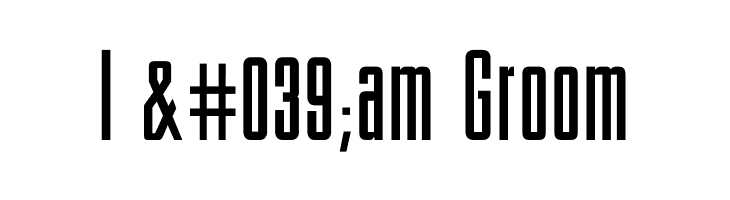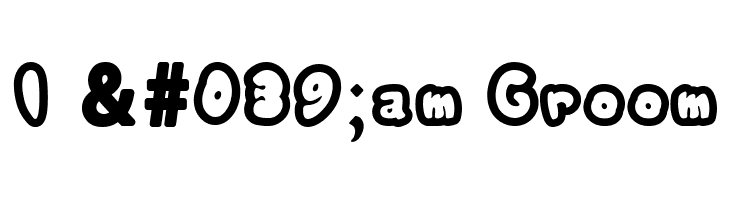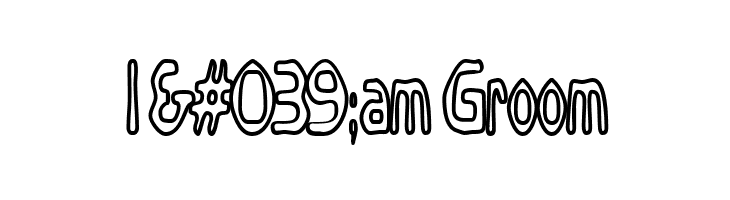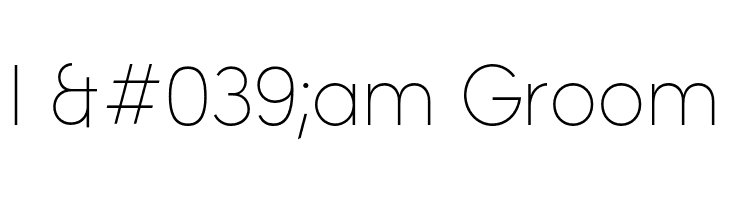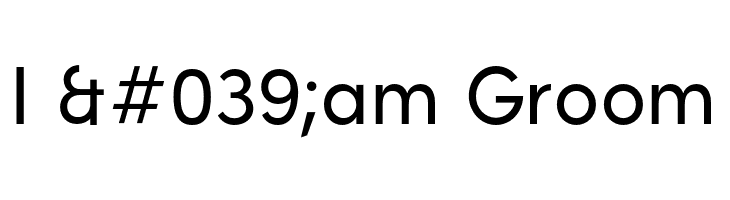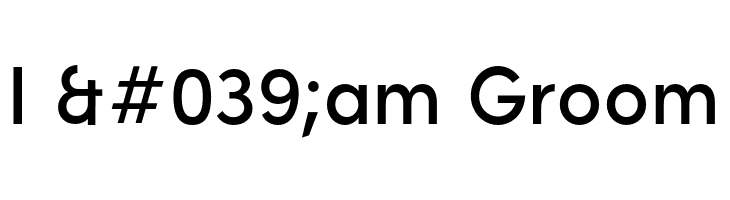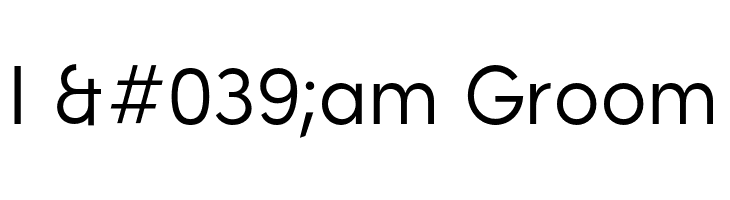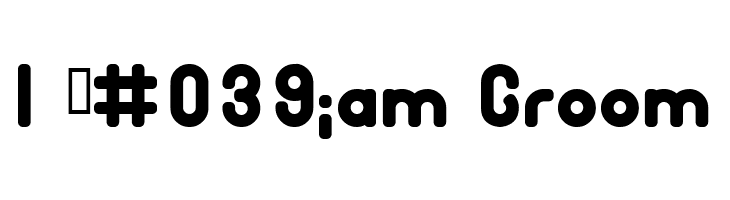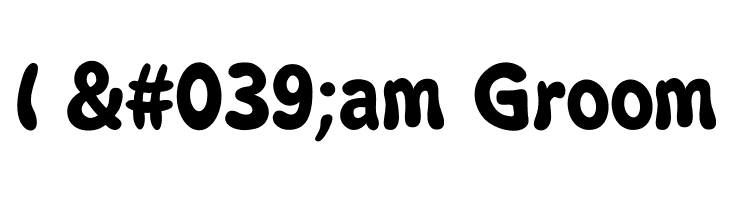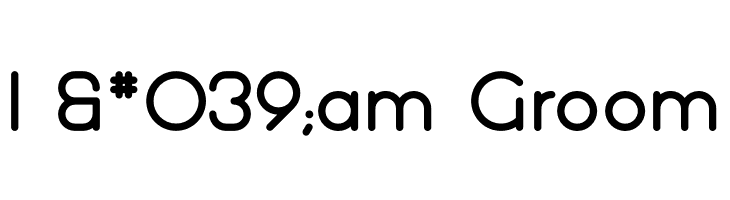
A modern, clean sans-serif font with a geometric touch.
A modern, geometric sans-serif font with thin strokes and high legibility.
A bold, playful handwritten font with a casual and lively style.
A bold, modern font with clean lines and strong presence.
A bold, oblique font with a modern and dynamic style.
A bold, condensed font with high contrast and elongated letterforms.
A bold, condensed font with tall, narrow characters and a modern aesthetic.
A bold serif font with strong strokes and tight character spacing, ideal for impactful headlines.
A bold, italic serif font with strong, dynamic strokes and pronounced serifs.
A bold, modern font with high contrast and elegant curves.
A playful, rounded font with smooth curves and uniform stroke width.
A playful, bold, and italicized font with rounded edges and a lively feel.
A bold, playful font with rounded, bubble-like characters.
A bold, playful font with bubble-like decorations inside each character.
A playful font with characters made of small, evenly spaced circles, creating a bubbly appearance.
A bold, rounded font with a playful and bubbly style.
A playful, rounded font with bold, smooth curves and a friendly appearance.
A modern, rounded font with smooth, elongated characters and consistent stroke width.
A playful, bubble-like font with rounded, bold characters.
A playful decorative font featuring cartoonish birds and speech bubbles.
A playful, bold font with a hand-drawn, rounded style.
A playful, bold font with rounded, bubbly characters ideal for fun and whimsical designs.
A bold, bubbly font with a playful and cartoonish style.
A bold, geometric font with a strong and impactful presence.
A bold, italicized font with a strong, dynamic presence.
A bold, handwritten-style font with a playful and dynamic appearance.